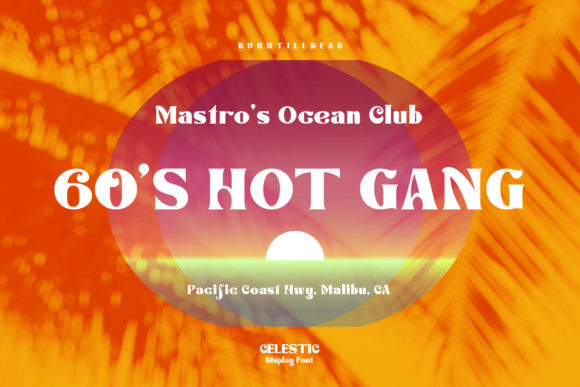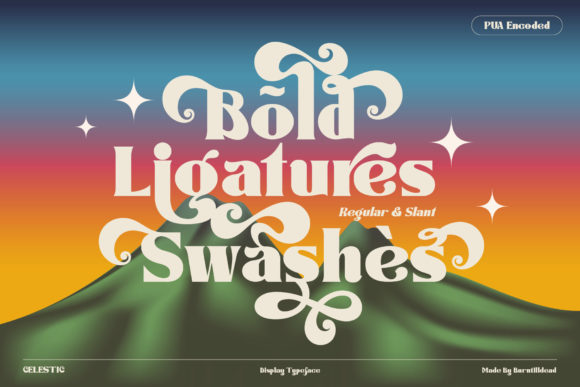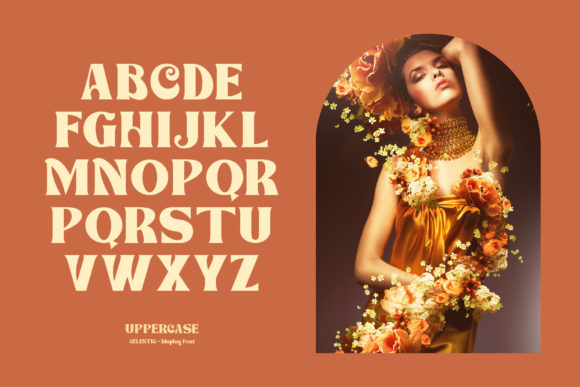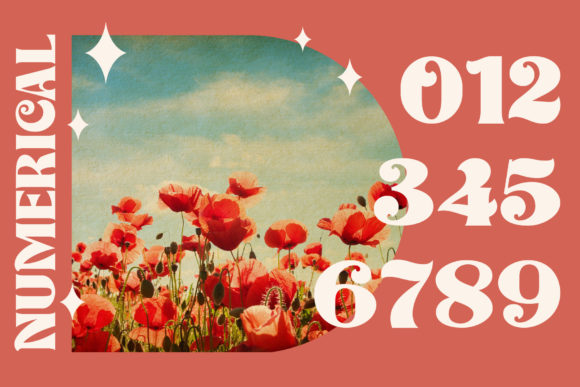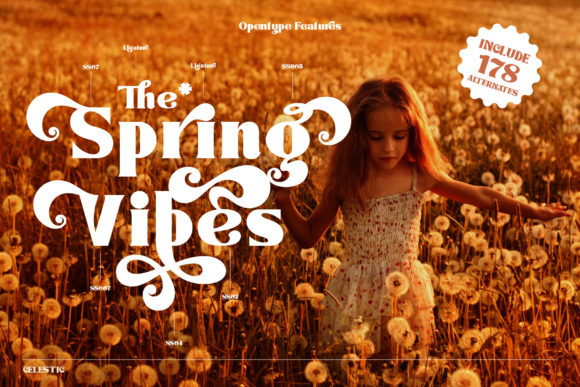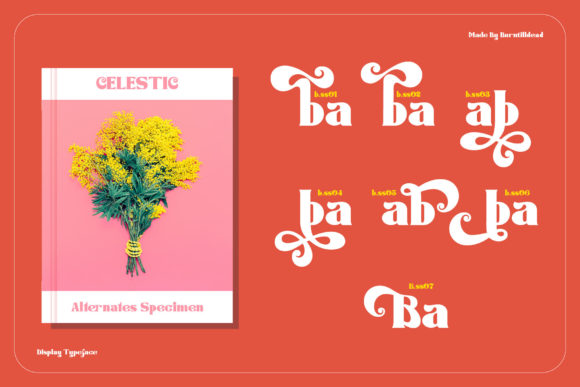
The Perfect Touch of Whimsy: Unlocking the Magic of Celestic Font
There’s something special about stumbling upon the perfect font for your design project. The moment when all the pieces come together, and your vision starts to take shape. It’s a feeling of excitement and anticipation, knowing that your creation is about to come to life. For designers, this moment is all too familiar, and it’s exactly what makes working with the right font so thrilling.
Enter Celestic Font, a vintage-styled display font that’s sure to add a touch of whimsy to any project. With its PUA-encoded glyphs and swashes, you’ll have access to a world of creative possibilities. Whether you’re designing a wedding invitation, a children’s book, or a brand identity, Celestic Font is the perfect addition to take your work to the next level.
Celestic Font Key Features
- Font Family: Celestic Font offers a range of font styles including regular, bold, italic, and bold italic.
- Character Set: Supports a wide range of languages, including Latin, Cyrillic, and Greek alphabets, making it suitable for global applications.
- Resolution: Optimized for high-resolution displays, ensuring clear readability on modern screens.
- Unique Characteristics: Celestic Font features a unique blend of elegance and sophistication, making it perfect for premium branding, luxury packaging, and high-end publications.
Celestic Font Review
Overall, I have mixed feelings about the Celestic Font. Let’s start with what works well. ✨ I really appreciate the elegant and refined aesthetic of this font. It’s perfect for creating a sense of luxury and sophistication in your designs. The subtle flair at the ends of the letters adds a touch of whimsy and playfulness, making it a great choice for creative projects. The font is also highly legible, even at smaller sizes, which is a must-have for any font.
However, there are some limitations to consider. ⚠️ For one, the font may be a bit too ornate for certain projects. If you’re looking for a clean and minimalist look, Celestic may not be the best choice. Additionally, the font is not as versatile as some other fonts on the market. It’s best suited for titles and headings, rather than body text.
- Elegant and refined aesthetic
- Subtle flair at the ends of the letters
- Highly legible
- Perfect for luxury and creative projects
- Best suited for titles and headings
Overall, I would give the Celestic Font 3.5 out of 5 stars. While it’s a beautiful font, its limitations may make it less versatile than other options on the market. However, if you’re looking for a font that exudes luxury and sophistication, Celestic may be worth considering.
Tips: Use Celestic Font for headings and titles to add a touch of elegance to your designs. Experiment with different font sizes and colors to create visual interest.
Tips: Use Celestic Font for titles and headings in your designs. Combine it with other fonts to create a unique and eye-catching look.
Tips: Use Celestic Font for headings and titles in your presentations and documents. Experiment with different font sizes and colors to create visual interest.
Celestic Font is ideal for:
- Editorial and publishing designs
Remember to use Celestic Font in moderation to avoid overwhelming your design. Balance it with other fonts and design elements to create a
Alternatives to Celestic Font
Lato is a popular sans-serif font that is highly legible and versatile. It is suitable for both body text and headings. Lato is a great alternative to Celestic Font when you need a clean and modern look.
Comparison: Lato has a more modern feel than Celestic Font, but it is also more versatile and comes in a wider range of weights.
Open Sans is another popular sans-serif font that is highly legible and clean. It is suitable for body text and is a great choice for digital products. Open Sans is a great alternative to Celestic Font when you need a font that is easy to read on screens.